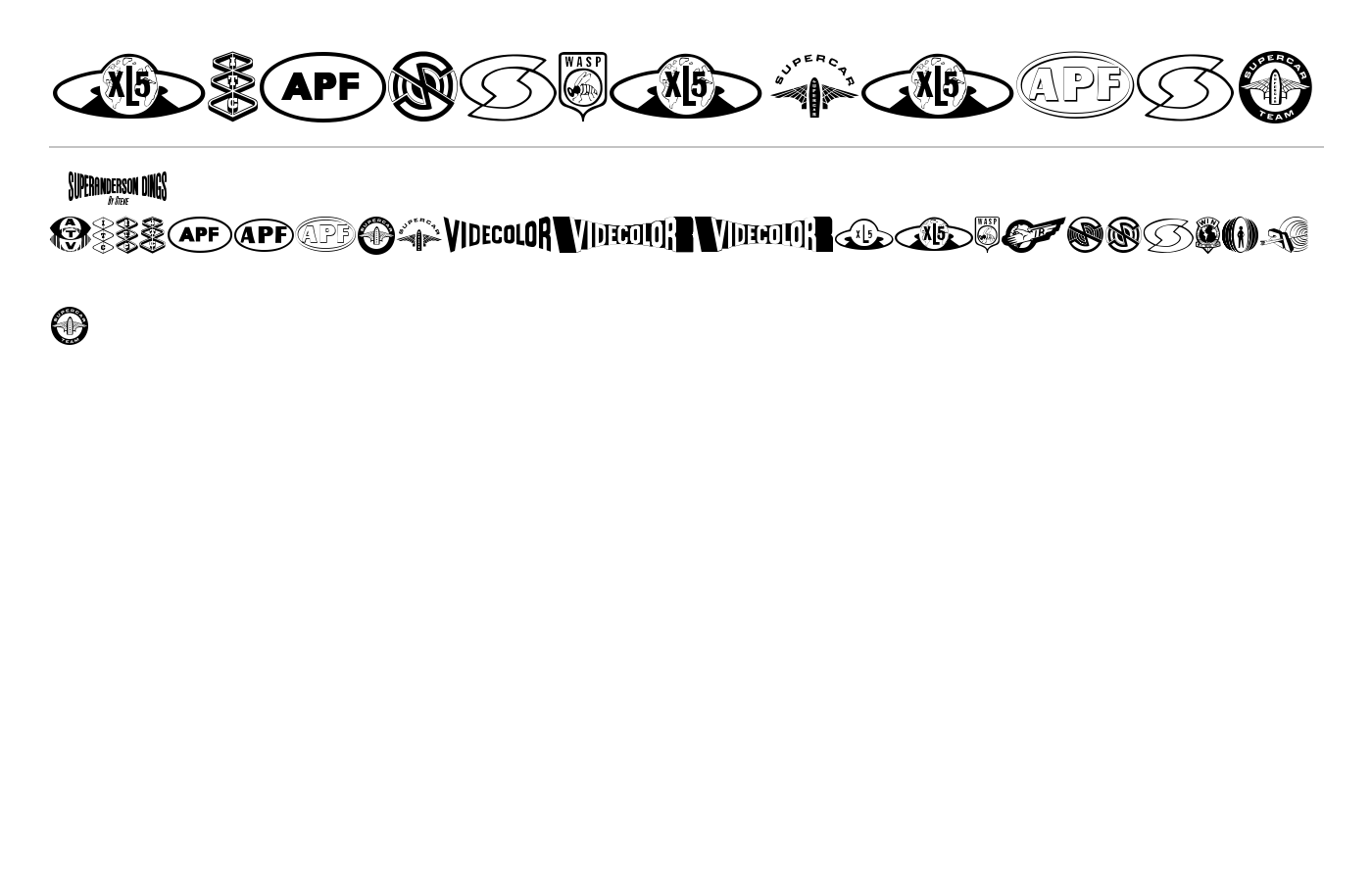
Anderson Dings 1 is a bold, decorative dingbat font featuring a variety of compact, emblem-style symbols resembling logos and badges. Its strong black-and-white contrasts and geometric shapes give it a vintage yet industrial feel, making it perfect for creative branding, retro packaging, and unique graphic design projects where distinctive icons are needed. This font works best as a visual accent rather than for body text, adding character and a sense of identity to design compositions.
Anderson Dings 1 Font
About Anderson Dings 1 Font